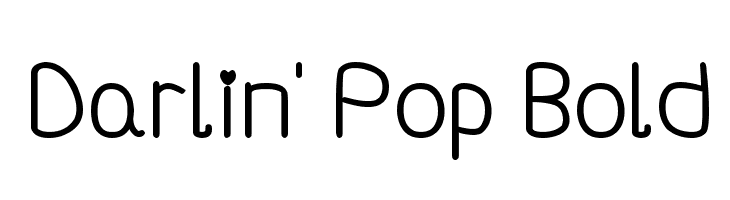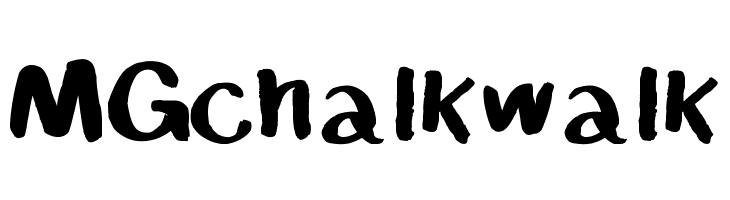
A classic serif typeface with elegant strokes and balanced proportions.
A modern, geometric font with clean lines and a minimalist style.
A playful and quirky font with twisted, irregular characters.
A bold, outlined font with a playful and cartoonish style.
A bold, distressed font with a grunge-like, hand-drawn appearance.
A bold, chiseled font with a three-dimensional effect, perfect for headlines.
A bold, jagged-edged font with a strong, energetic presence.
A decorative font with intricate, symbol-like characters inspired by ancient motifs.
A pixelated, retro-style font with a blocky, 8-bit aesthetic.
A playful and whimsical font with decorative elements and a romantic touch.